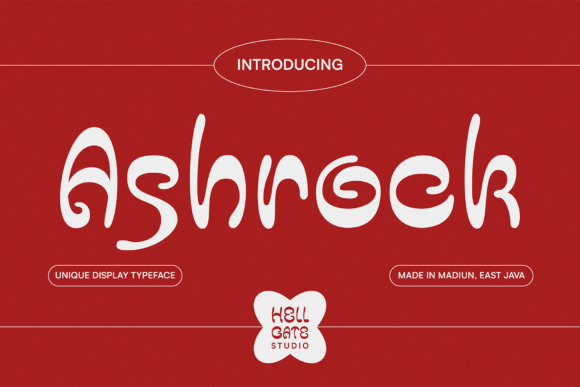
Discover the Elegance of Ashrock Unique Display Typeface
Have you ever been in the middle of a design project, and suddenly, you just can’t seem to find the right font? I recall a particularly frustrating experience while working on a luxury brand campaign. My client wanted a typeface that exuded elegance and sophistication, but everything I tried seemed to fall flat. That’s when I stumbled upon the Ashrock Unique Display Typeface. It was love at first sight! ✨
A Personal Review of Ashrock
As a designer, I’m always on the lookout for typefaces that can elevate my projects. Here’s my honest review of Ashrock:
- ✅ Its strikingly beautiful design, perfect for adding a touch of elegance and sophistication to any project.
- ✨ The ease of text editing and color customization, which allows for endless creative possibilities.
- 🔥 The high-quality rendering, which ensures that the typeface looks excellent in any design.
While Ashrock is an exceptional typeface, there are a few minor quirks to be aware of:
- ⚠️ Some users might find the font a bit too ornate for certain projects, such as casual or playful designs.
- 🤔 The font’s intricate design might require more processing power, which could be a concern for users with older computers.
The Story Behind Ashrock
Ashrock was designed with the intention of creating a typeface that embodies elegance and sophistication. The designer aimed to craft a font that would be perfect for luxury brands, high-end designs, and creative projects that demand attention to detail. With Ashrock, you can add a touch of refinement and style to your designs.
| Font Name | Ashrock Font |
| Author | febryan.satria1 |
| Is Ashrock suitable for body text? | While Ashrock is a beautiful typeface, it’s primarily designed for display purposes. It might not be the best choice for body text, but feel free to experiment! |